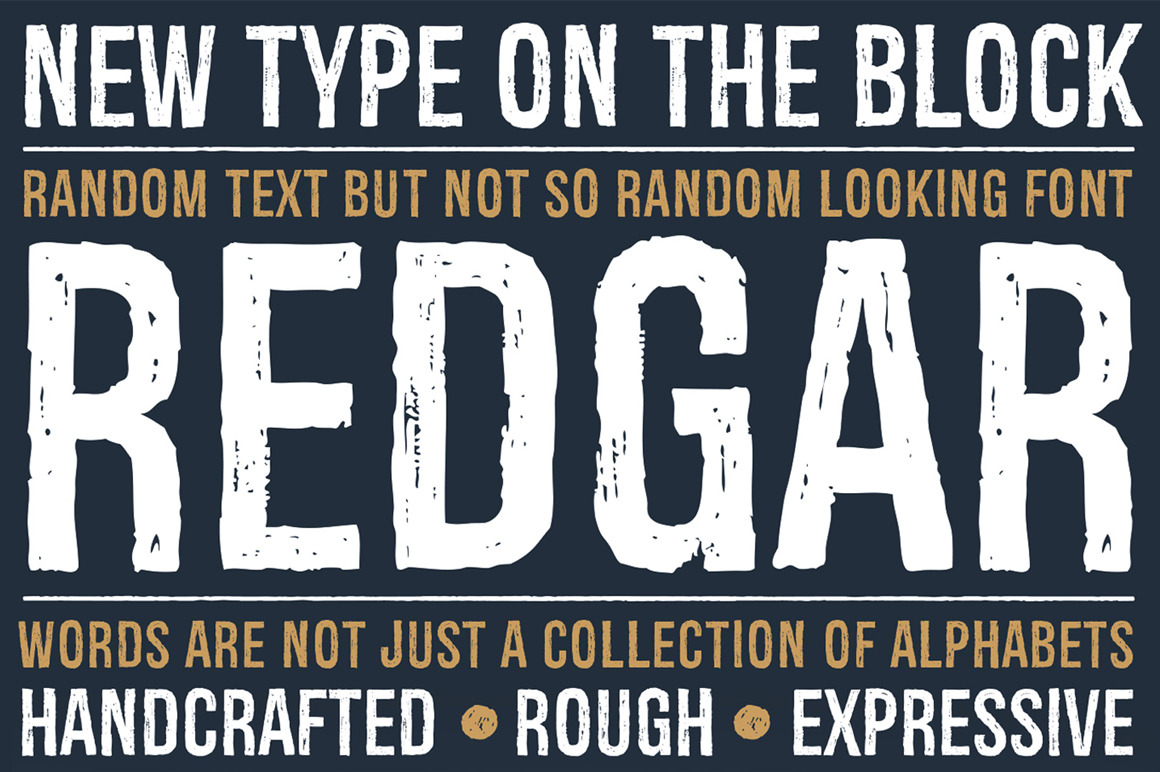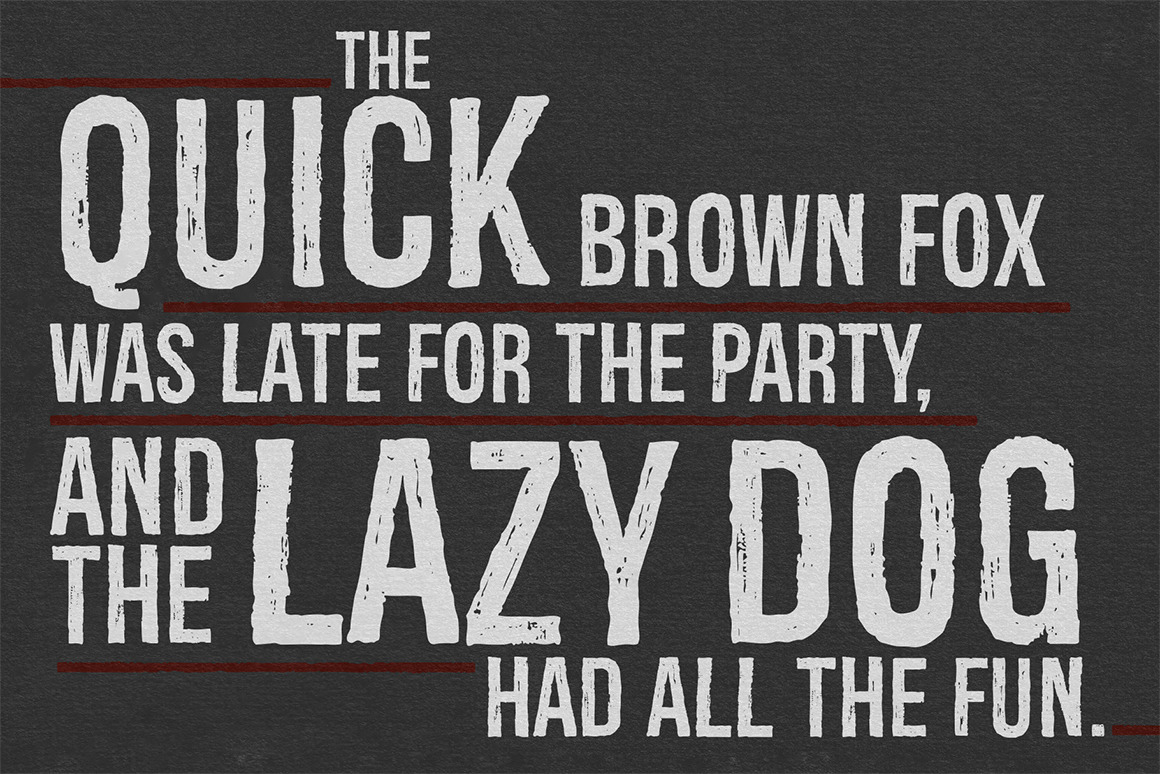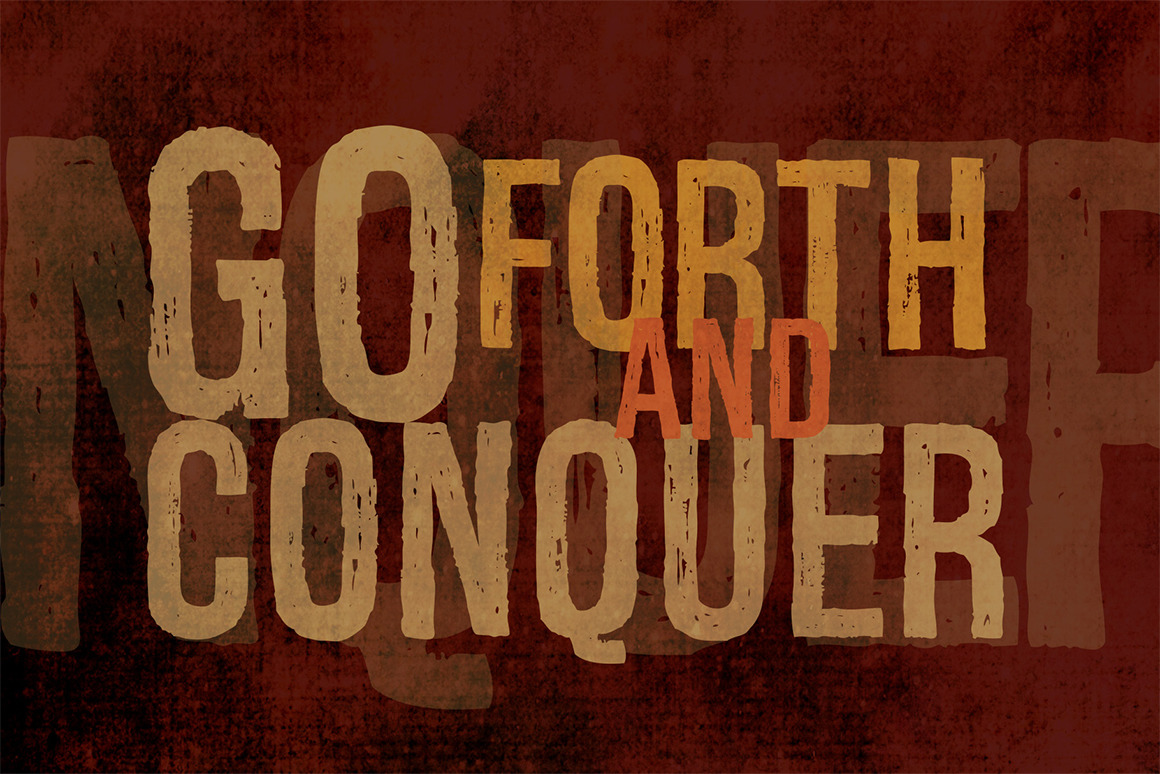
Redgar Font
Redgar is a weathered display font with a bold, condensed and rough character. It works really well for display text wherever a rugged, tough and bold look is required. Especially suited for for posters, billboards, headers, headlines, logos, branding, advertisements, etc.